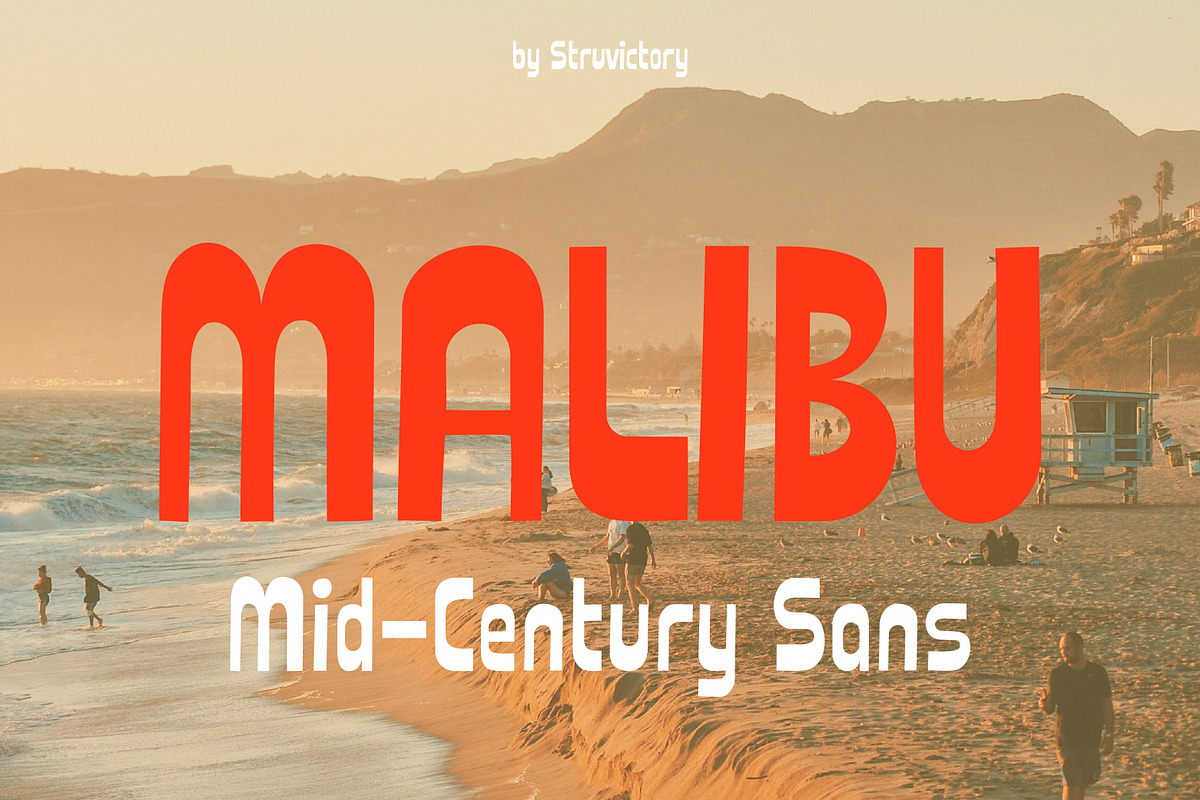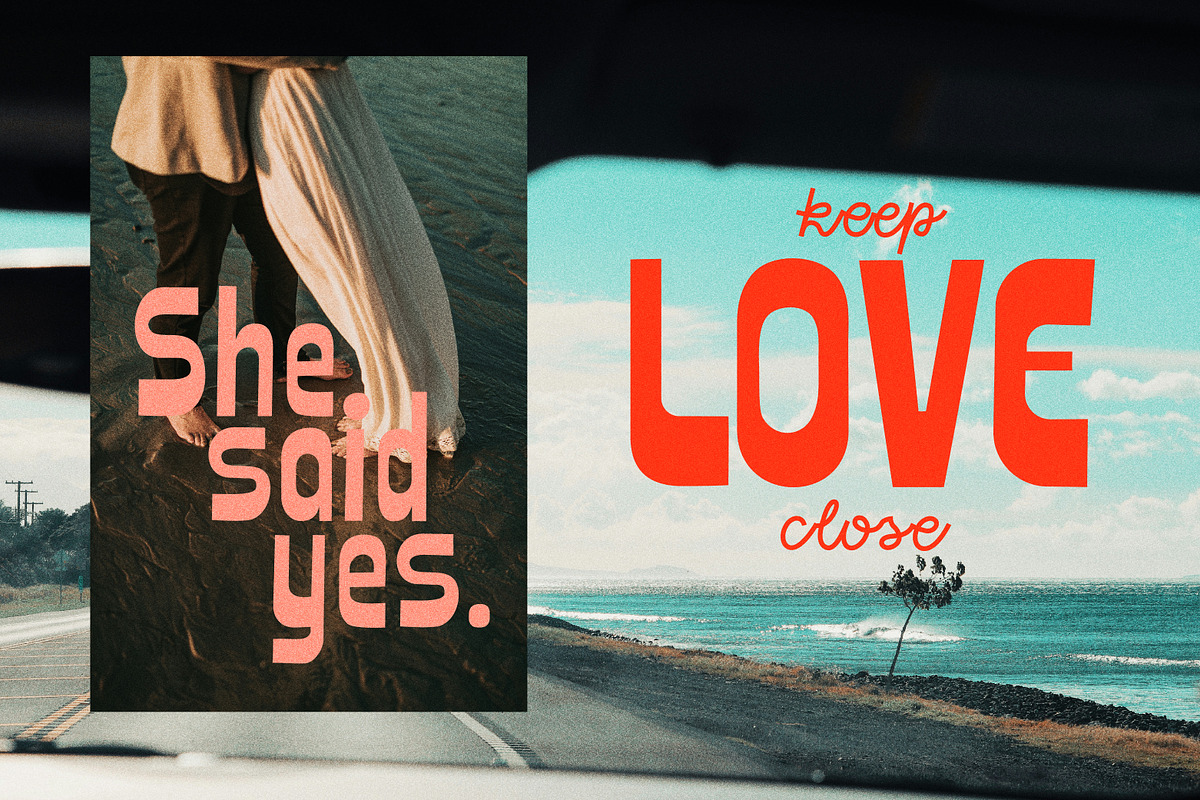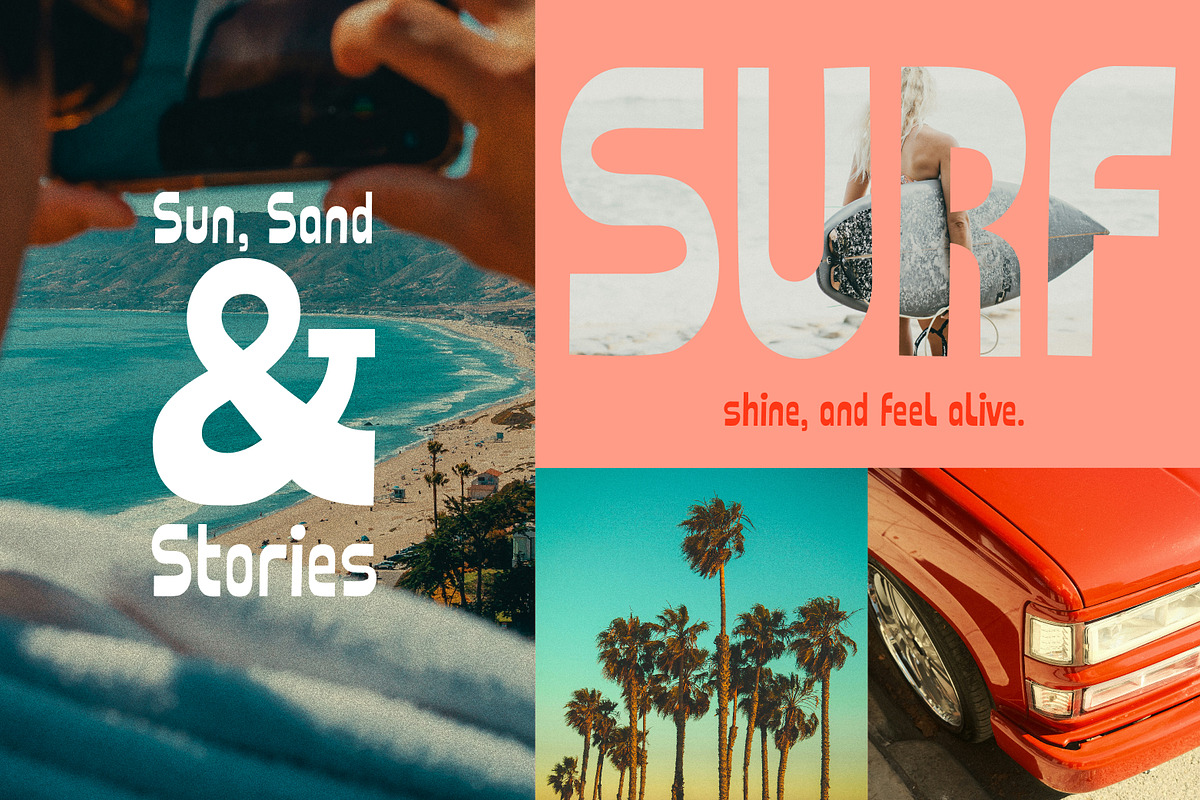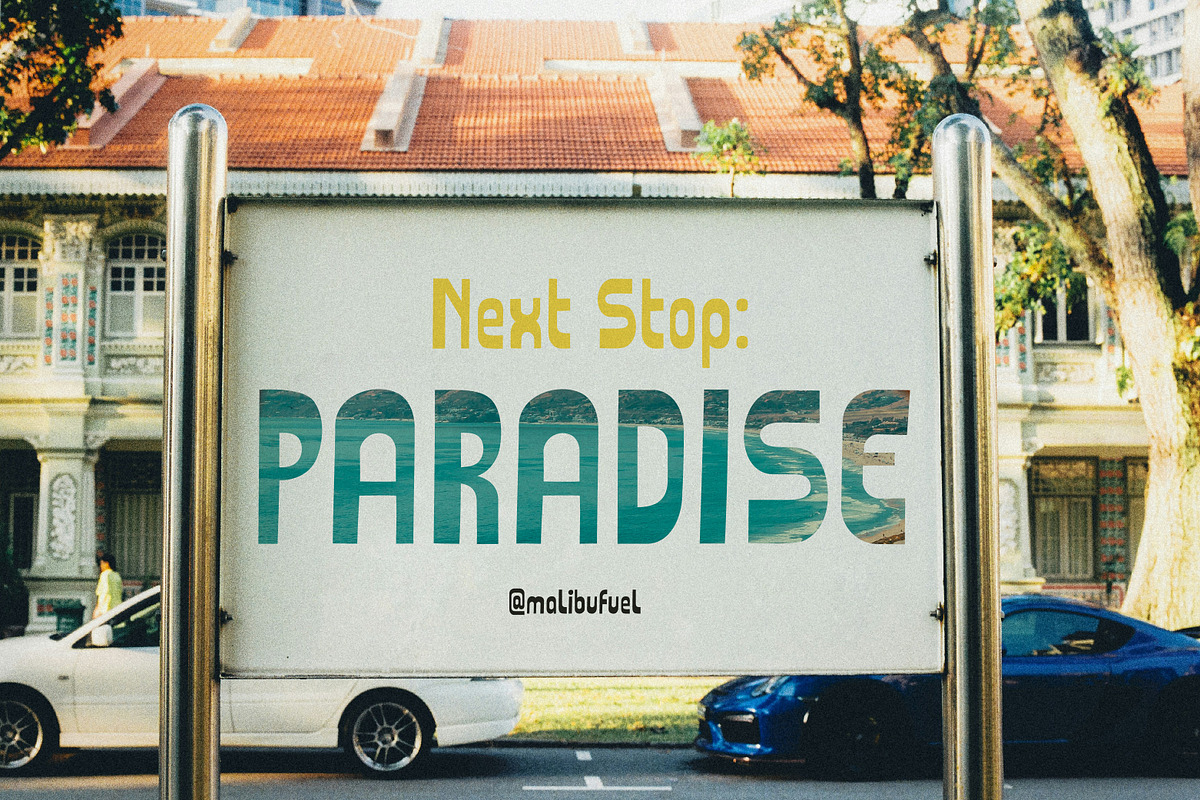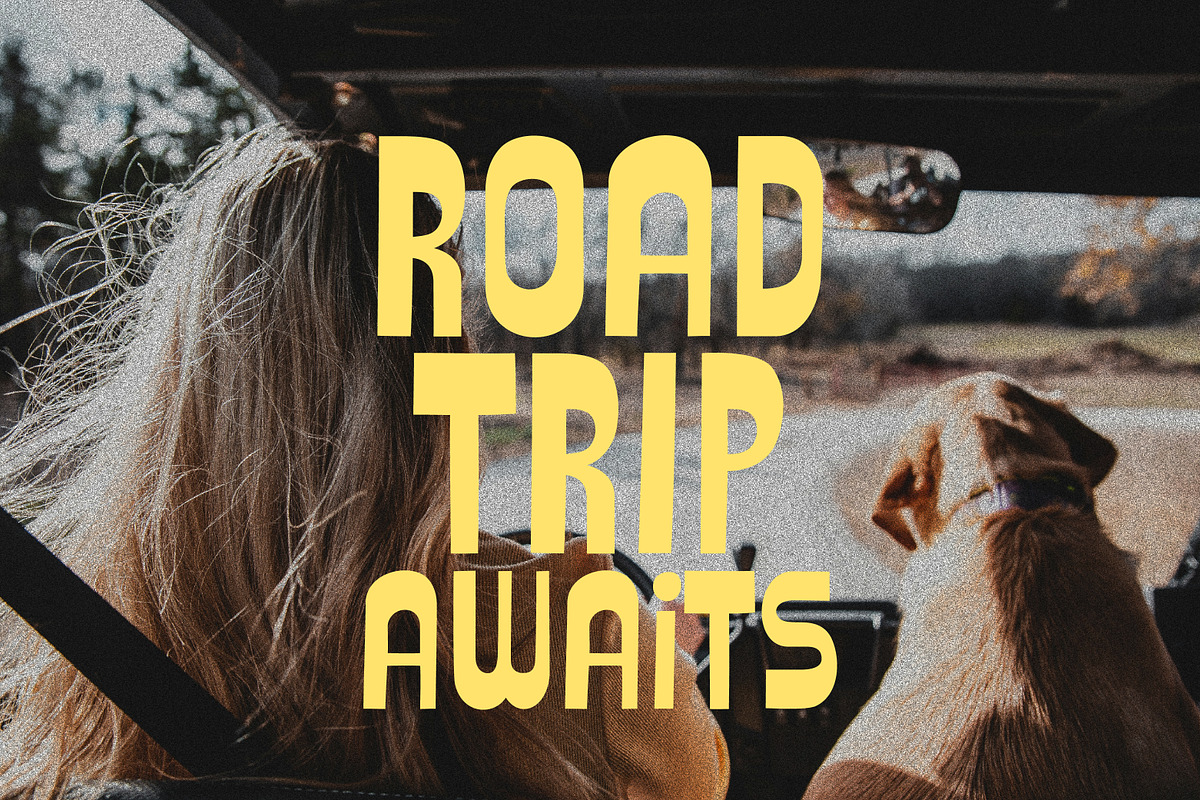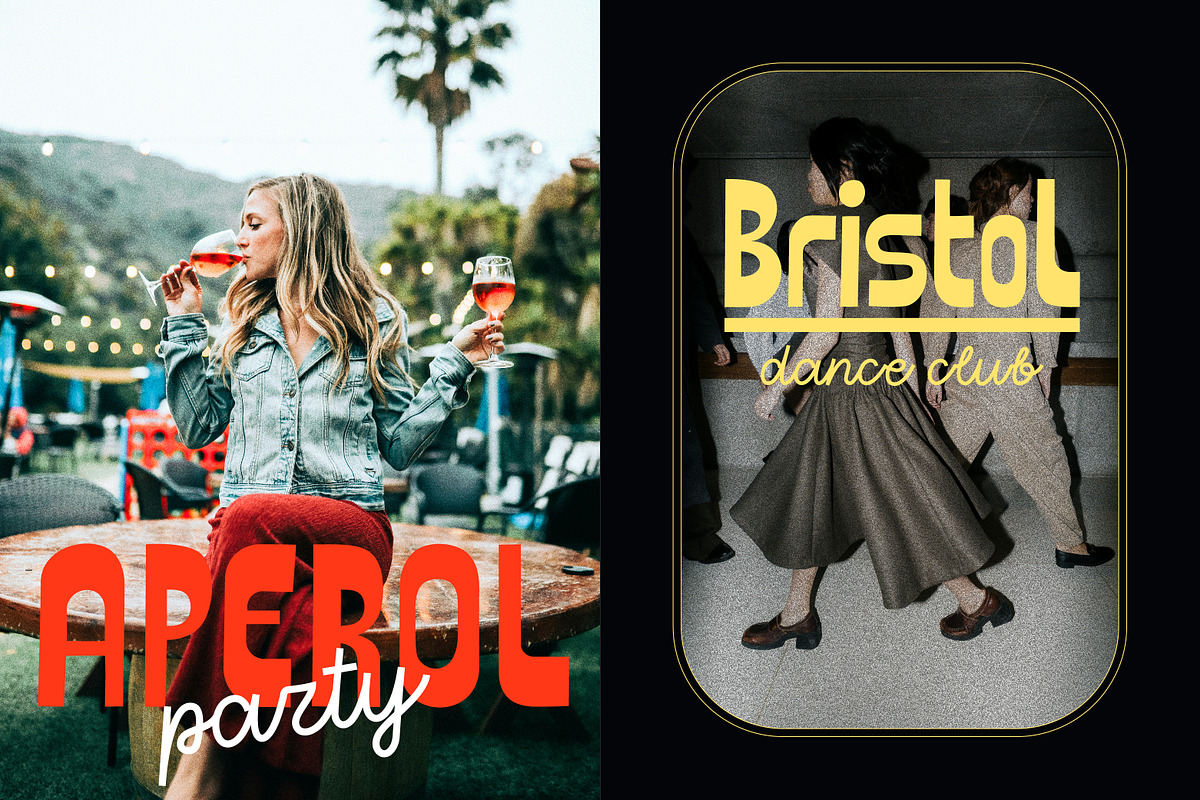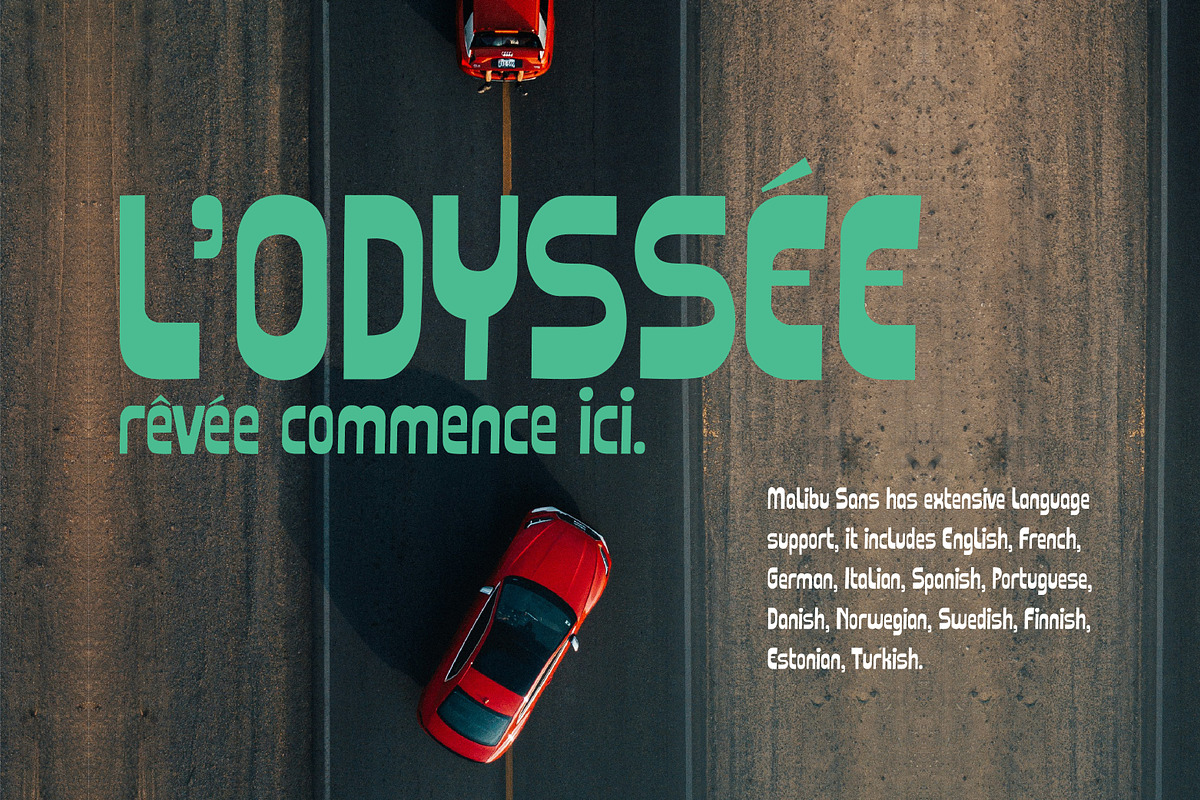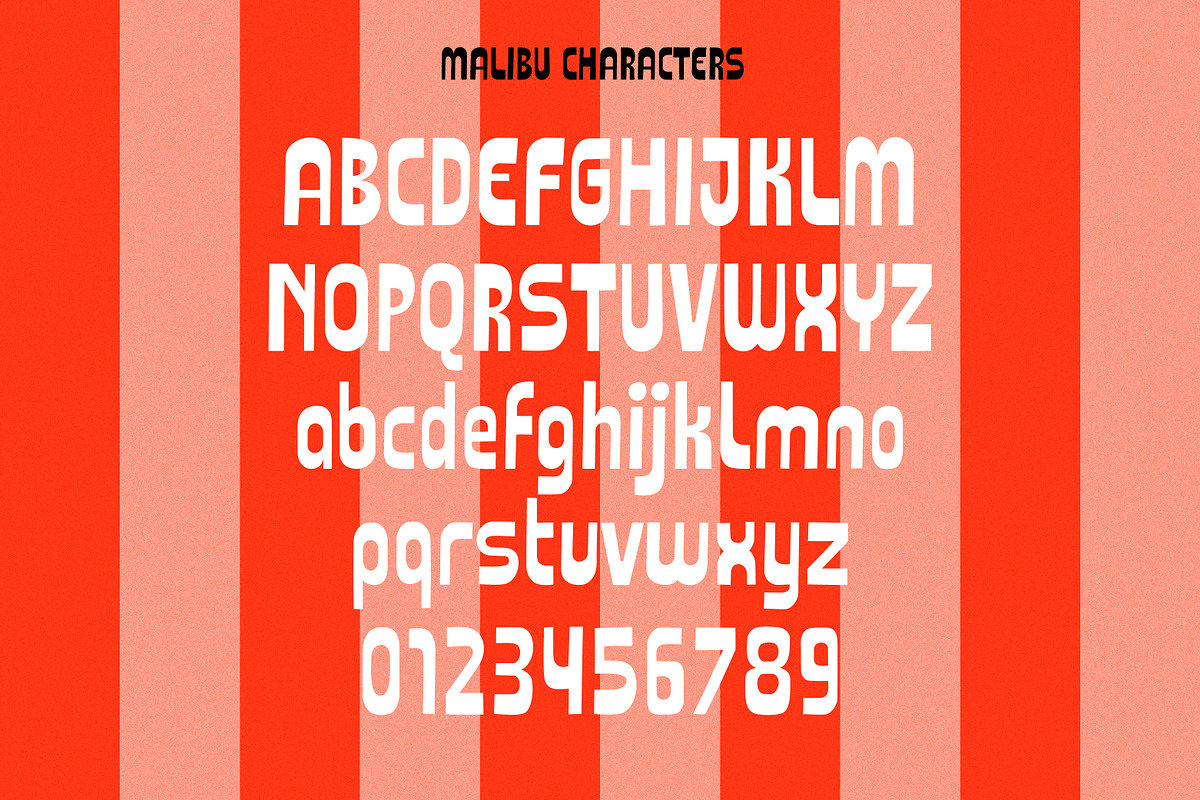
Malibu Nostalgic Mid-Century Sans
Meet Malibu – a breezy, sun-kissed font inspired by the golden era of mid-century design. With its smooth curves, effortless flow, and subtle retro charm, Malibu captures the essence of vintage signage, road trip nostalgia, and coastal cool. Perfect for branding, packaging, travel posters, editorial design, and laid-back apparel, this typeface brings warmth and personality to any project. Whether you’re channeling the spirit of a classic motel sign or adding a touch of retro elegance to your designs, Malibu is your ticket to timeless style.
Malibu supports the most popular latin-based languages, you can check the symbol you need by typing a couple of words in the font preview box.